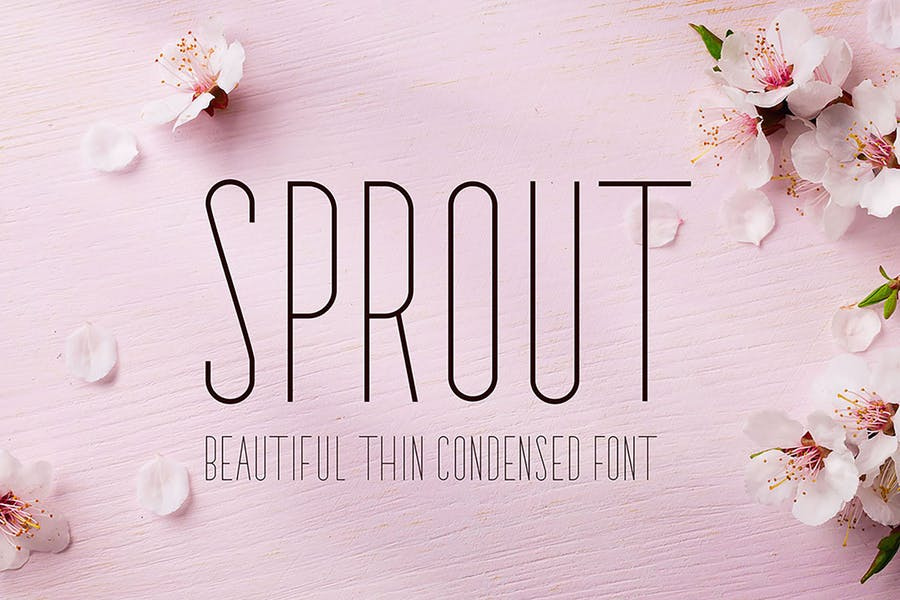
Sprout Font
Sprout Font is perfectly suited for organic food branding, eco-friendly product packaging, sustainable business logos, garden center signage, environmental campaign materials, wellness brand identities, natural health product labels, green technology promotions, and earth-conscious marketing campaigns.
What makes Sprout Font so exciting is its fresh, organic vitality and natural growth aesthetic that perfectly embodies the essence of sustainability, renewal, and environmental consciousness in every thoughtfully designed letterform. This inspiring typeface captures the spirit of new beginnings with its gentle curves and organic shapes that evoke images of young plants reaching toward the sun and the promise of natural growth. The font's clean, wholesome appearance and harmonious proportions create an immediate sense of freshness and authenticity that resonates with environmentally conscious consumers who value sustainability and natural living. Sprout Font stands out through its ability to convey growth, health, and environmental responsibility, making it perfect for projects that need to establish eco-friendly credibility while connecting with audiences who prioritize wellness, sustainability, and positive environmental impact.
The Sprout Font family includes Light, Regular, Medium, and Bold weights, each maintaining the font's distinctive organic character while providing design flexibility for various eco-friendly applications. The family also features natural alternates and earth-inspired decorative elements that enhance the font's sustainable aesthetic and provide comprehensive solutions for environmentally conscious design projects.
When you choose Sprout Font Free Download, you're selecting a typeface that brings authentic environmental consciousness and natural vitality to your creative projects. This font excels in creating designs that need to convey sustainability, health, and connection to nature. Its fresh organic appearance makes it particularly effective for eco-friendly brands, health and wellness companies, and green initiatives that want to communicate genuine environmental responsibility.
The technical craftsmanship of Sprout Font includes a comprehensive character set with uppercase and lowercase letters, numerals, punctuation marks, and nature-inspired symbols that maintain the font's organic character. The font has been carefully optimized for both digital and print applications, ensuring consistent performance while preserving the gentle, natural details that give it its distinctive earth-friendly character and wholesome appeal.
Whether you're designing sustainable brand identities, creating eco-friendly product packaging, developing environmental awareness campaigns, or crafting designs that need to convey natural wellness and environmental responsibility, Sprout Font delivers the perfect combination of organic authenticity and contemporary functionality that makes your projects resonate with audiences seeking genuine sustainability and healthy living solutions.